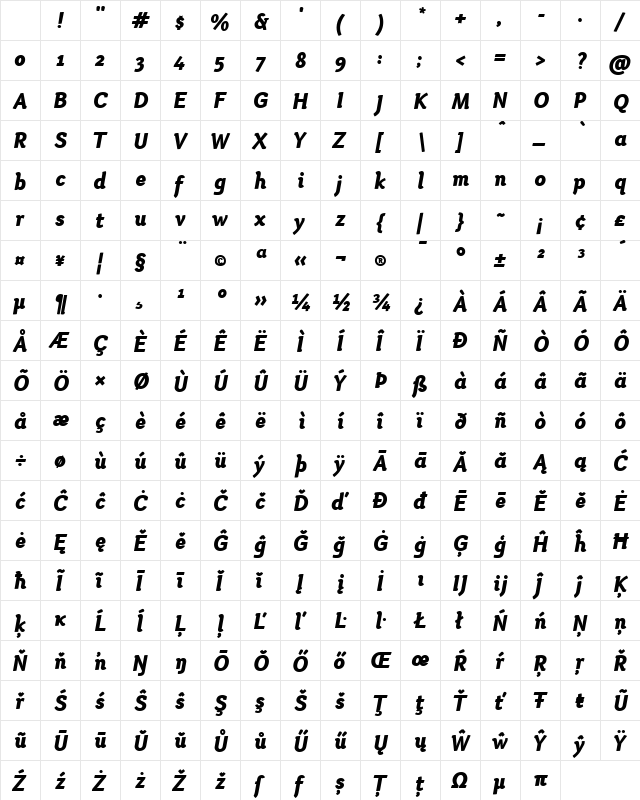
Otari is a composed and adaptable typeface that performs quietly and consistently across a wide range of design contexts. The slanted form adds forward momentum and visual energy.
Pro Tip: Use Otari for emphasis, pull quotes, and subheadings where its slanted energy can add rhythm to the layout.